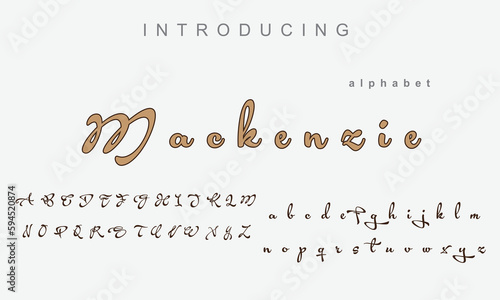
Mackenzie font. Elegant alphabet letters font and number. Classic Copper Lettering Minimal Fashion Designs. Typography fonts regular uppercase and lowercase. vector illustration